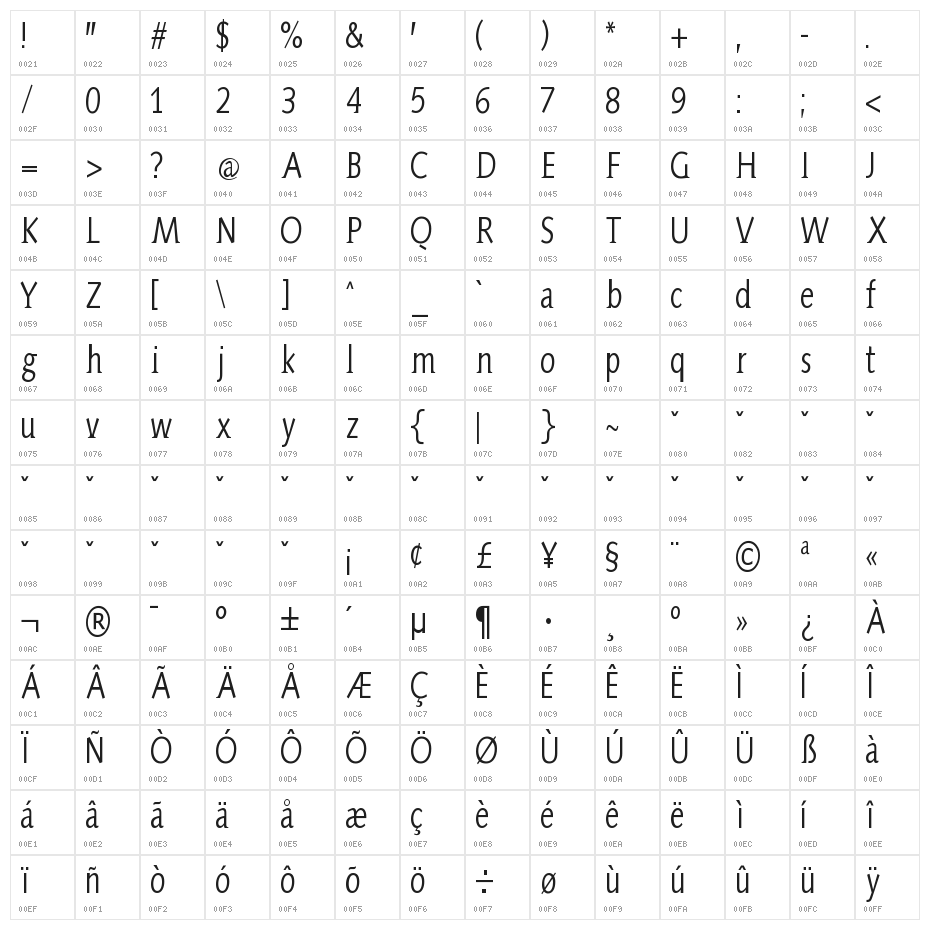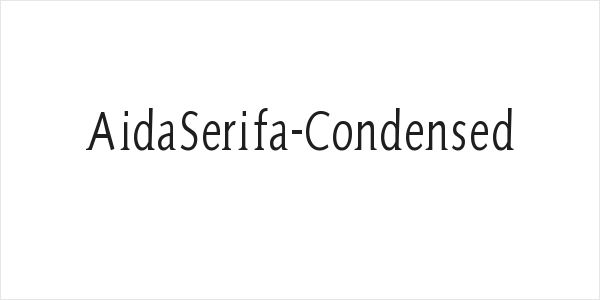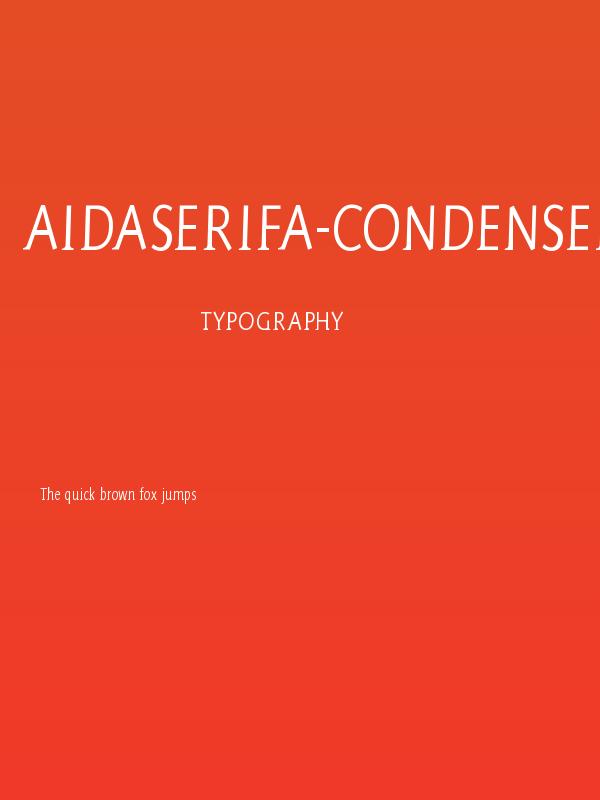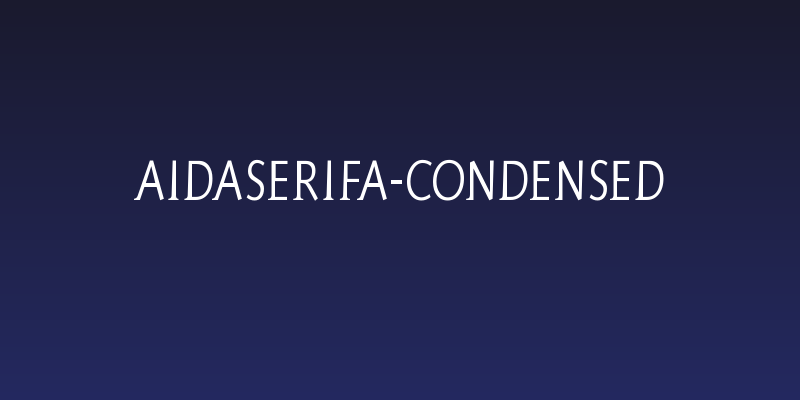
AidaSerifa-Condensed Font
AidaSerifa-Condensed Description
This font features a classic serif style with a condensed form, offering a sophisticated and elegant appearance. The characters are well-defined with sharp serifs and a moderate contrast between thick and thin strokes. The uppercase letters are tall and commanding, while the lowercase letters maintain a balanced and readable form. The numerals are clear and consistent, making them suitable for both text and display purposes. Special characters are included, enhancing the font's versatility for various applications. The overall design is timeless, making it suitable for formal and professional settings.
| Proposed Projects | Ideal for editorial design, book covers, formal invitations, and corporate branding. |